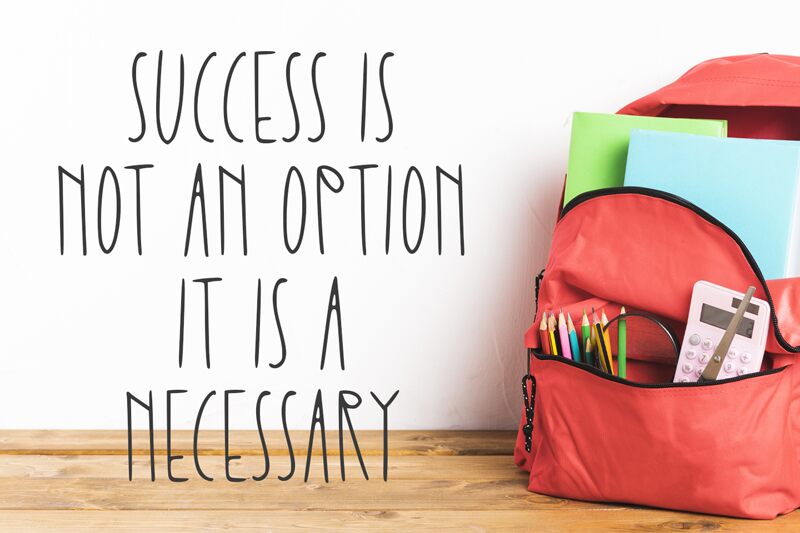
Up To You
Up To You is a beautiful, handwritten font designed by Panggah Laksono @ Abo Daniel Studio. Its thin and condensed width make it perfect for crafting modern logos, creating eye-catching titles, or adding a unique touch to your social media posts.